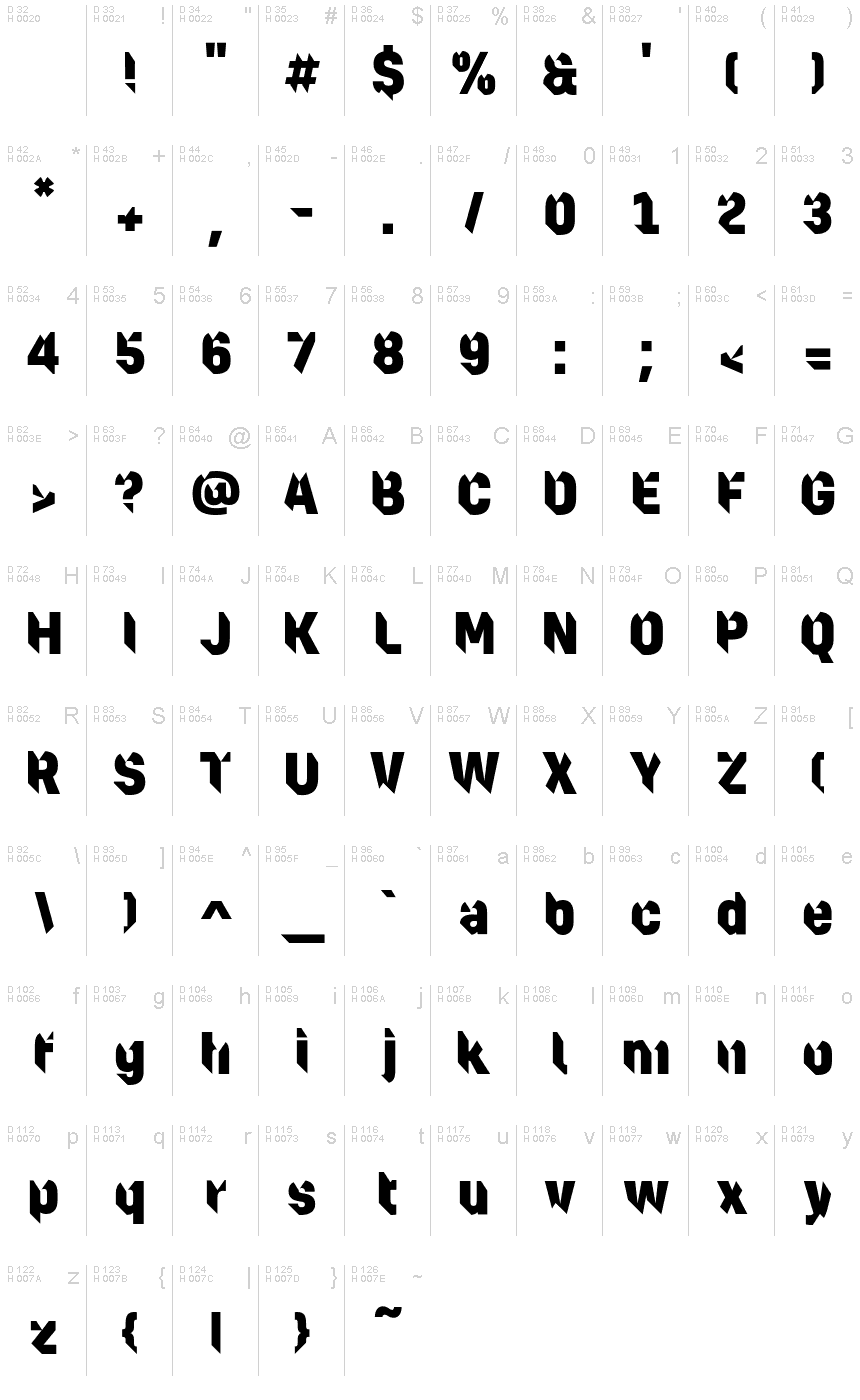
Rocket-Regular
Rocket, designed by Naan Type Studio, is a bold and edgy display font with an eroded style that adds a touch of grunge to any design project. With its strong and commanding presence, this typeface is suitable for a wide range of creative projects such as movie posters, album covers, branding materials, and much more. The bold weight of the Rocket font conveys power and energy while the eroded style adds a raw and rugged texture that makes it perfect for designs that need to stand out from the crowd. Give your next project some rocket-fueled energy with this dynamic display font.